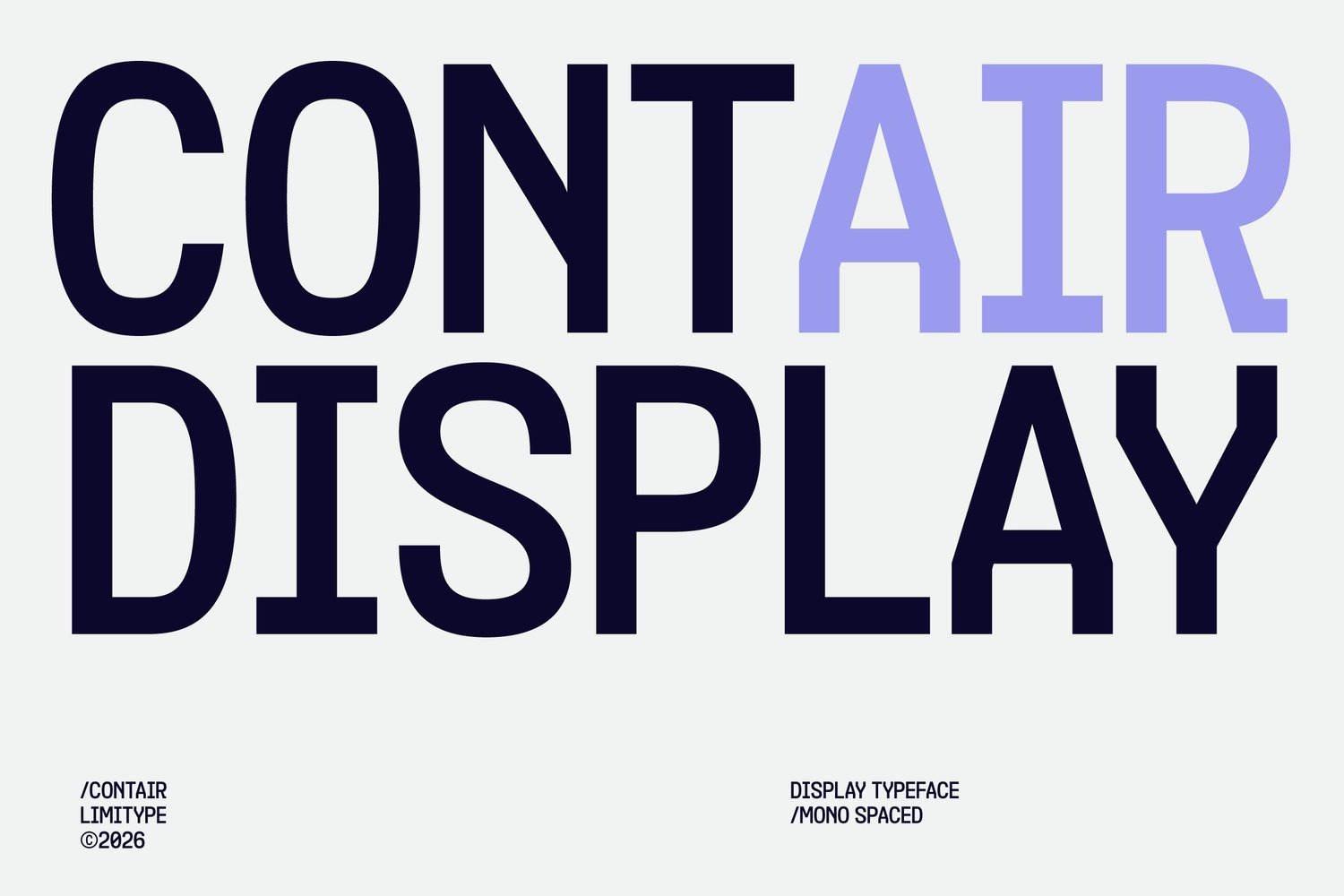
Contair – Monospaced Font
Contair – Monospaced Font is a versatile font designed to adapt beautifully across different design styles, offering dependable readability and balance. Contair is a modern monospaced display font designed with a minimalist approach, delivering a clean, precise, and highly structured visual aesthetic. Its consistent spacing and geometric form create a technical yet elegant appearance, making it ideal for branding, editorial layouts, digital interfaces, posters, and contemporary visual identities.